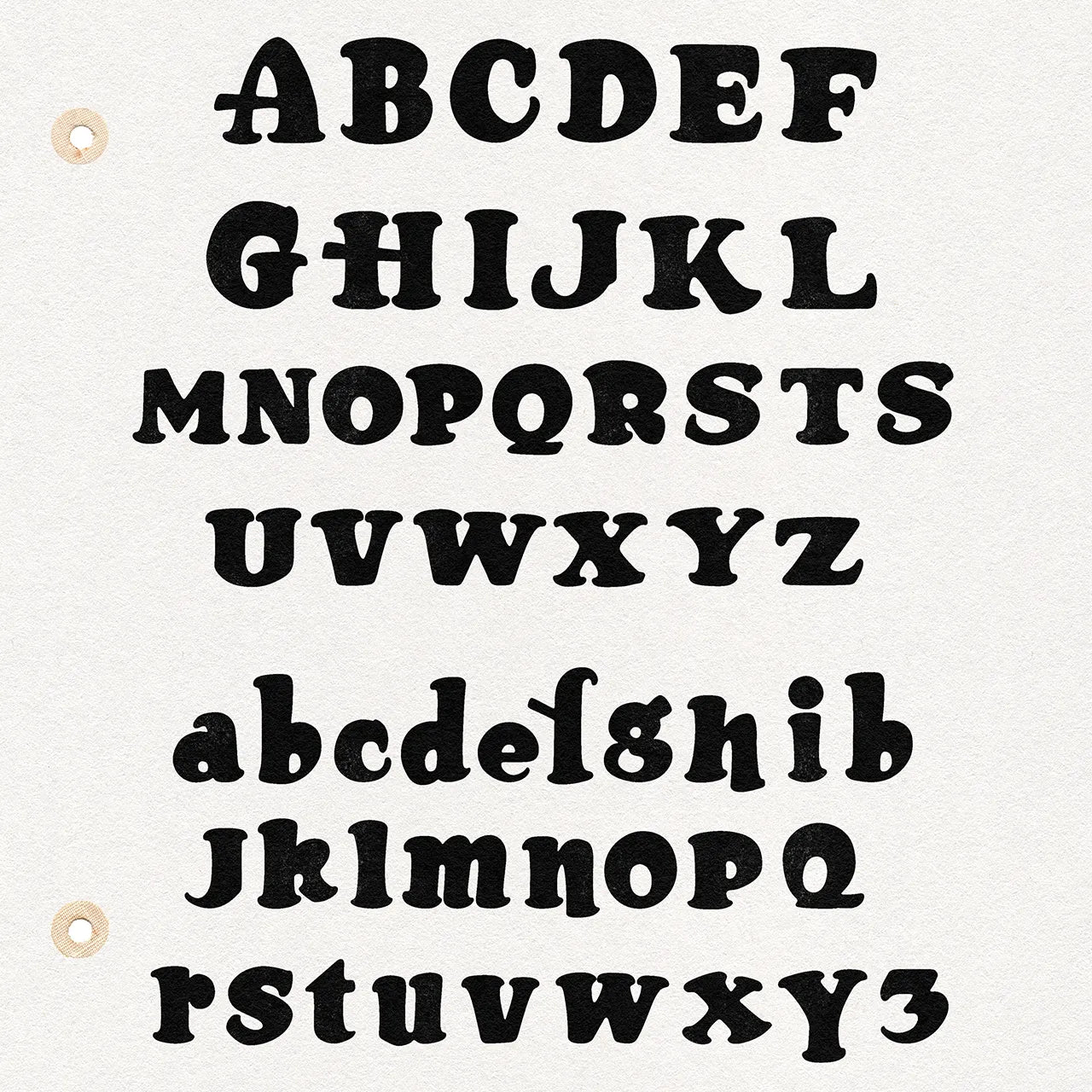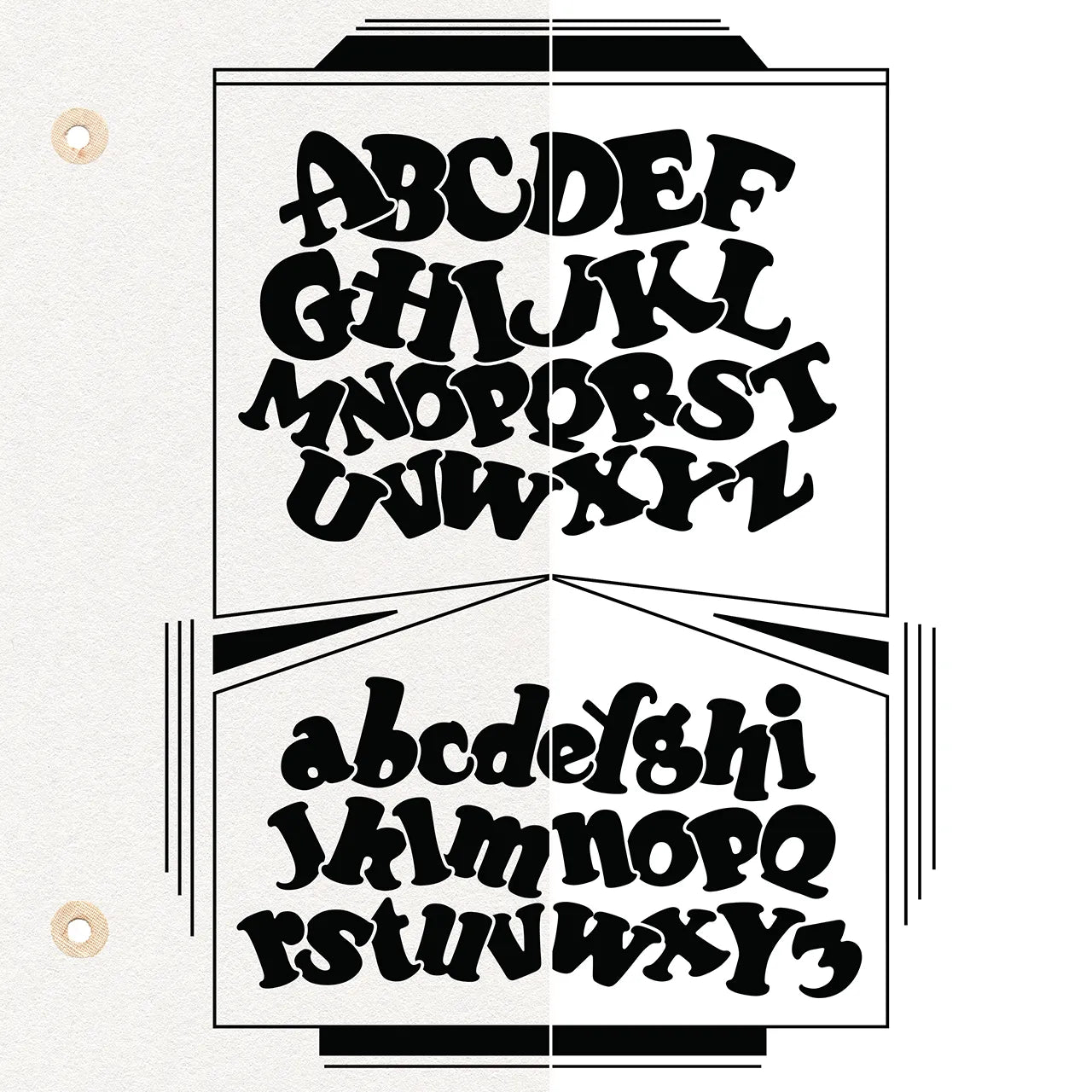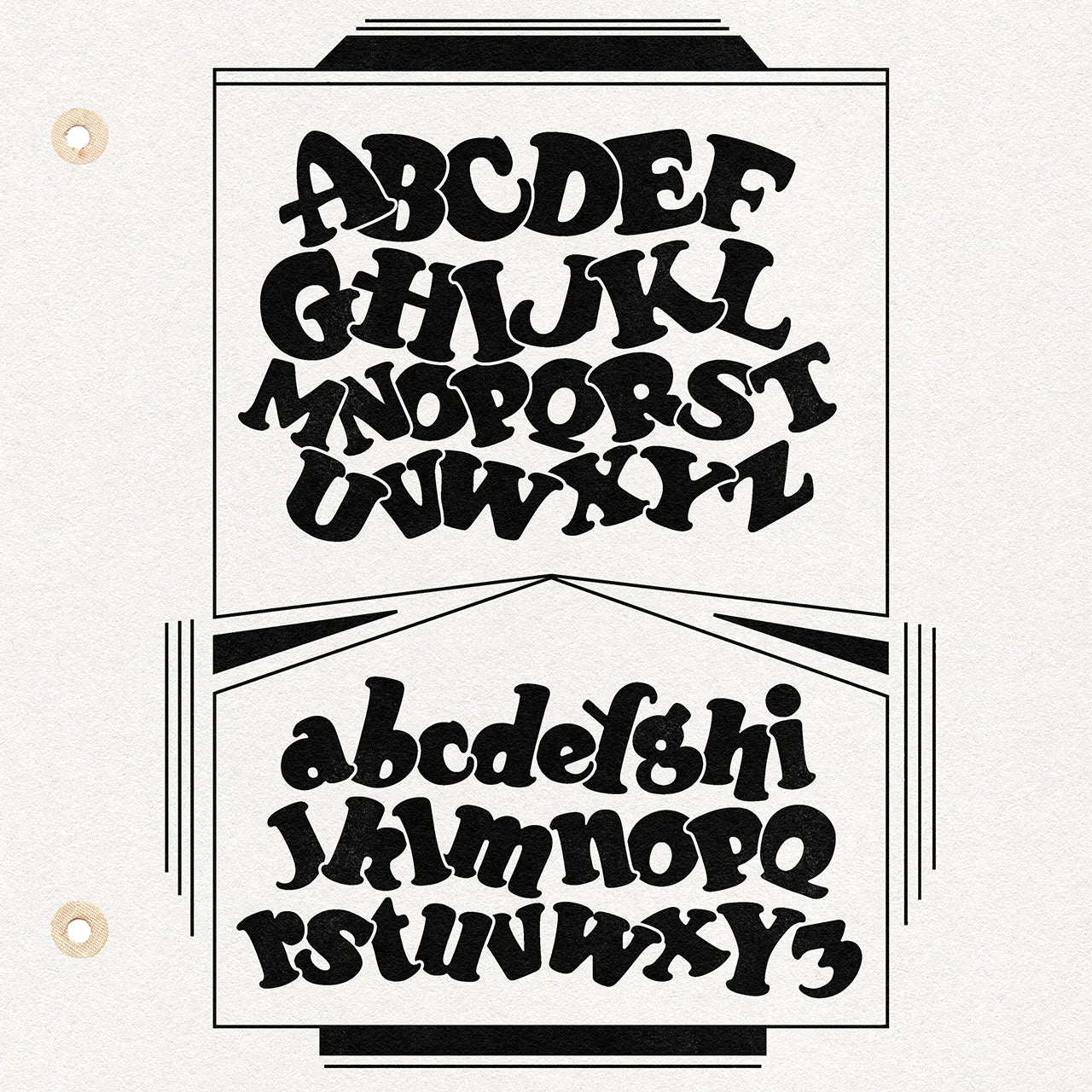
No. 55 - Alf Becker Alphabet
Vectorized from a vintage sign painter's alphabet!
Originally named "Bold Frolic" by the talented sign painter and designer Alf Becker.
This fun letter style is designed to present featured display copy for the theater, attractions, dances and anywhere you need bold, playful letterforms.